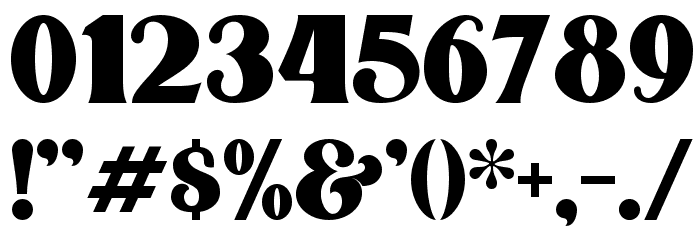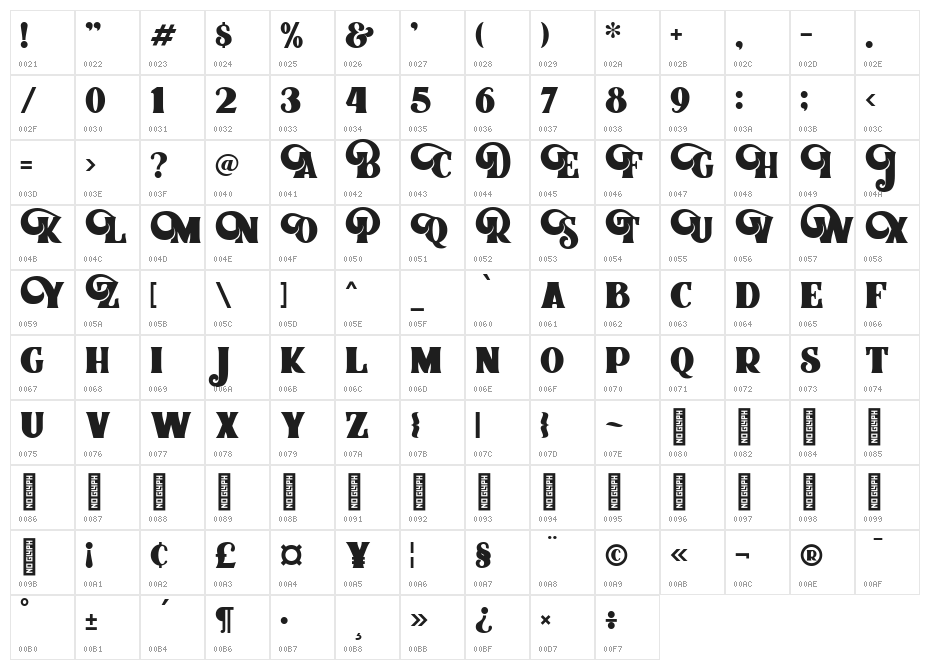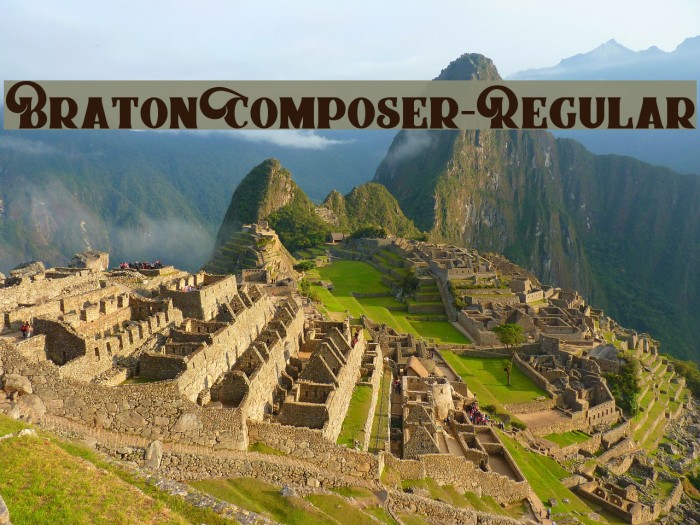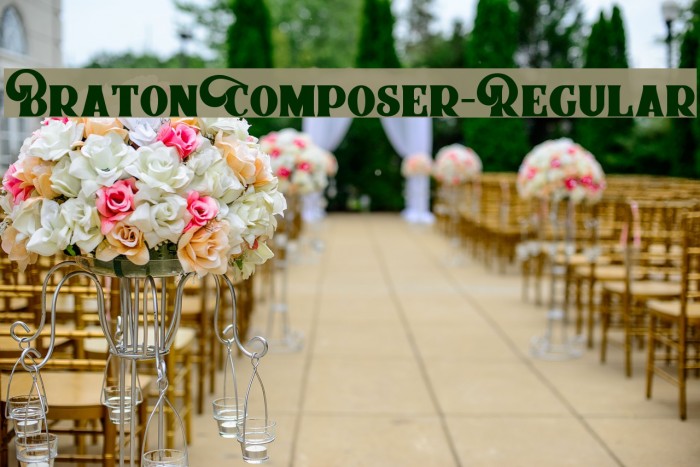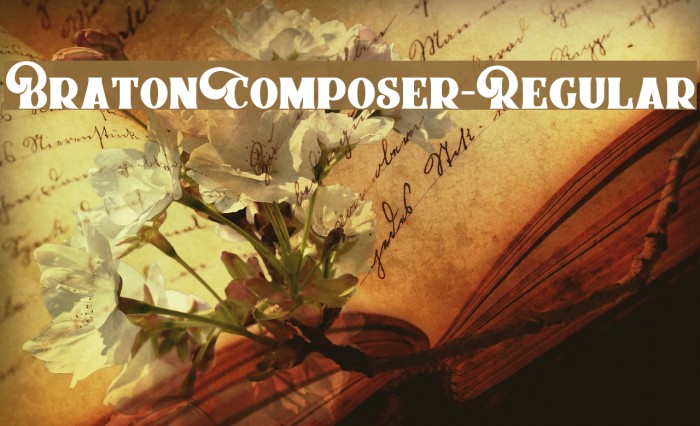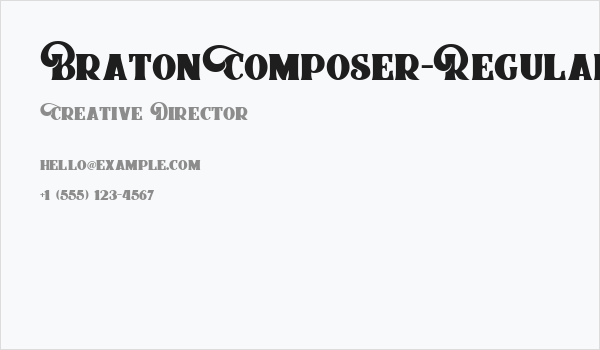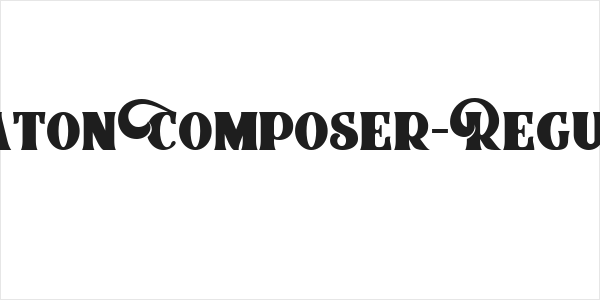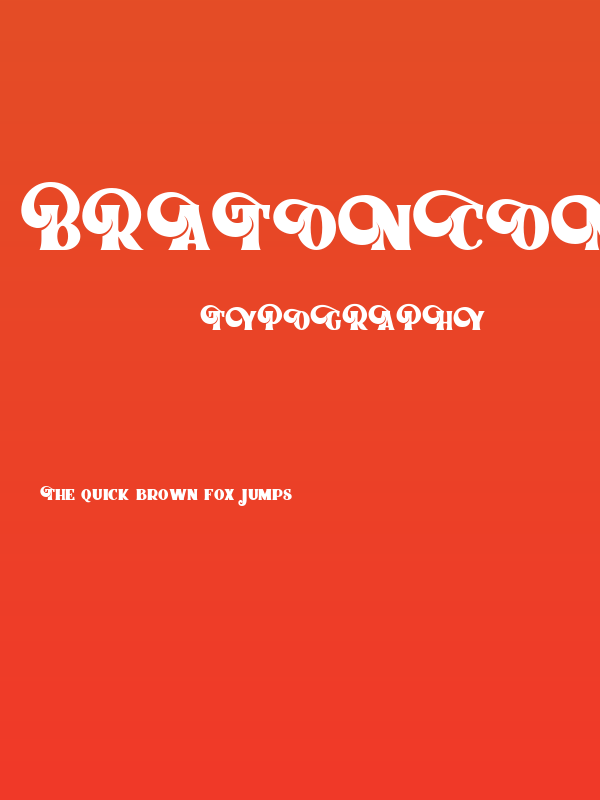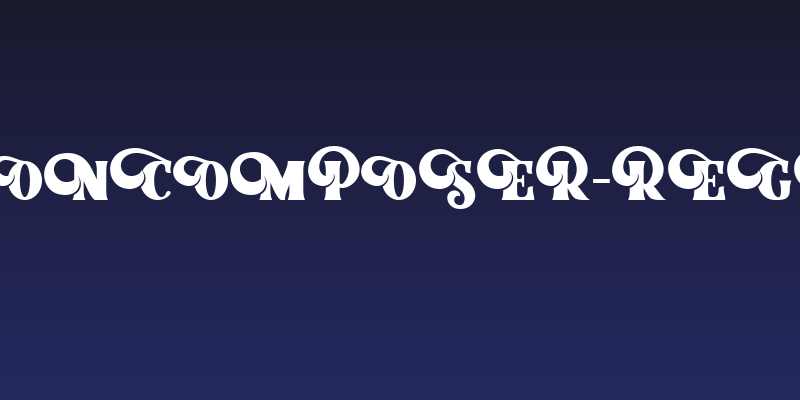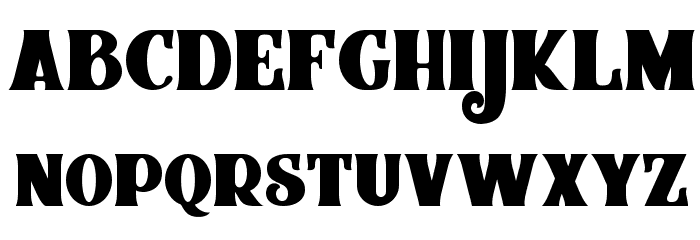
BratonComposer-Regular Font
BratonComposer-Regular Description
This font features a bold and decorative style with a unique flair. The uppercase letters are characterized by intricate swirls and curls, giving them a playful and artistic appearance. The lowercase letters maintain a consistent boldness, with some characters featuring subtle curves and embellishments. The numbers are equally bold, with a slight vintage touch, making them stand out. Special characters are designed with the same decorative elements, ensuring a cohesive look throughout. This font's overall style is eye-catching and ideal for making a statement.
| Proposed Projects | Ideal for branding, posters, headlines, and any project requiring a bold, artistic touch. |